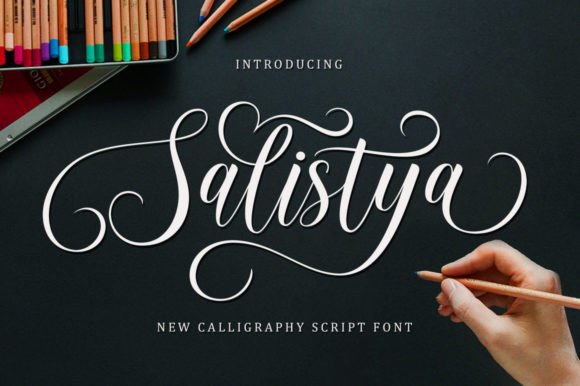
Salistya Font: The Elegant and Timeless Choice for Your Design Projects
When it comes to creating visually stunning designs, the right font can make all the difference. If you’re looking for a font that exudes elegance and sophistication, look no further than Salistya. This beautiful, flowing handwritten font is perfect for adding a touch of refinement to your favorite projects. In this article, we’ll take a closer look at Salistya and explore its unique features, as well as provide tips on how to use it to create spectacular designs.
What is Salistya Font?
Salistya is a carefully crafted, handwritten font that boasts an elegant and refined aesthetic. Its flowing lines and delicate curves make it perfect for a wide range of design applications, from wedding invitations and branding materials to social media graphics and more. With its incredibly distinct and timeless style, Salistya is sure to capture the hearts of designers and non-designers alike.
Key Features of Salistya Font
- Elegant and Refined Aesthetic: Salistya’s elegant and refined aesthetic makes it perfect for designs that require a touch of sophistication.
- Flowing Lines and Delicate Curves: The font’s flowing lines and delicate curves create a beautiful, handwritten look that’s both classic and timeless.
- Incredibly Distinct and Timeless Style: Salistya’s unique style sets it apart from other fonts, making it a great choice for designers looking to create something truly special.
- Perfect for a Wide Range of Design Applications: From wedding invitations to branding materials, Salistya is versatile enough to be used in a variety of design projects.
Tips for Using Salistya Font
Now that we’ve covered the basics of Salistya, let’s dive into some tips for using this beautiful font in your designs.
- Pair it with a Sans-Serif Font: For a classic look, pair Salistya with a sans-serif font, such as Arial or Helvetica. This will create a beautiful contrast between the elegant, handwritten font and the clean, modern sans-serif font.
- Use it for Headings and Titles: Salistya is perfect for headings and titles, where its elegant and refined aesthetic can really shine.
- Add a Pop of Color: To really make your design stand out, try adding a pop of color to your Salistya text. A bold, bright color can add a fun and playful touch to your design.
- Experiment with Different Sizes and Styles: Don’t be afraid to experiment with different sizes and styles of Salistya. The font looks great in a variety of sizes and can be used to create a range of different effects.
Design Inspiration: How to Create Spectacular Designs with Salistya
Salistya is a versatile font that can be used to create a wide range of designs, from elegant and refined to fun and playful. Here are a few design inspiration ideas to get you started:
- Wedding Invitations: Salistya is perfect for wedding invitations, where its elegant and refined aesthetic can add a touch of sophistication to your design.
- Branding Materials: Use Salistya to create beautiful branding materials, such as business cards, letterheads, and brochures.
- Social Media Graphics: Salistya is a great choice for social media graphics, where its elegant and refined aesthetic can help your brand stand out.
- Packaging Design: Use Salistya to create beautiful packaging design, such as labels and packaging inserts.
The Benefits of Using Salistya Font
So why choose Salistya for your design projects? Here are just a few benefits of using this beautiful font:
- Unique and Timeless Style: Salistya’s unique and timeless style sets it apart from other fonts, making it a great choice for designers looking to create something truly special.
- Elegant and Refined Aesthetic: The font’s elegant and refined aesthetic makes it perfect for designs that require a touch of sophistication.
- Versatile: Salistya is versatile enough to be used in a wide range of design applications, from wedding invitations to branding materials.
- Easy to Read: Despite its elegant and refined aesthetic, Salistya is easy to read, making it perfect for designs where legibility is important.
In conclusion, Salistya is a beautiful, flowing handwritten font that’s perfect for adding a touch of elegance and sophistication to your design projects. With its incredibly distinct and timeless style, Salistya is sure to capture the hearts of designers and non-designers alike. Whether you’re creating wedding invitations, branding materials, or social media graphics, Salistya is a great choice. So why not give it a try and see the difference it can make in your designs?